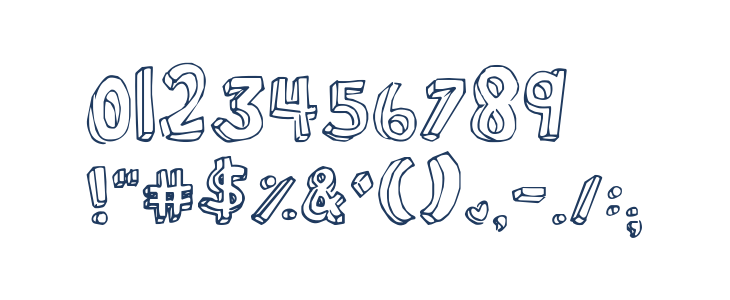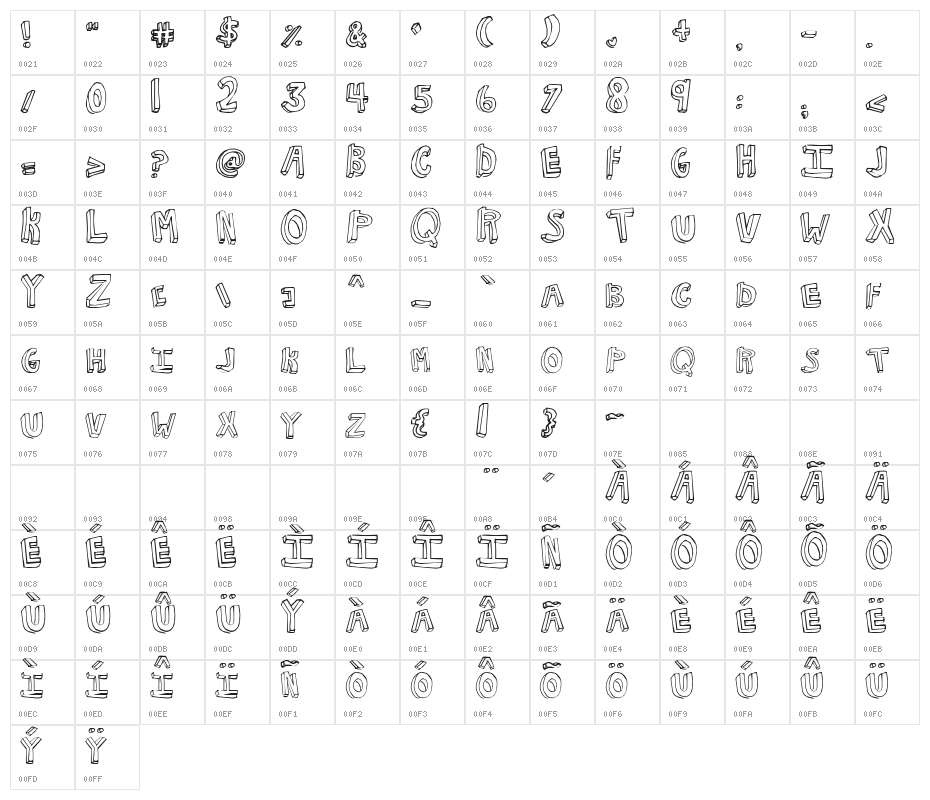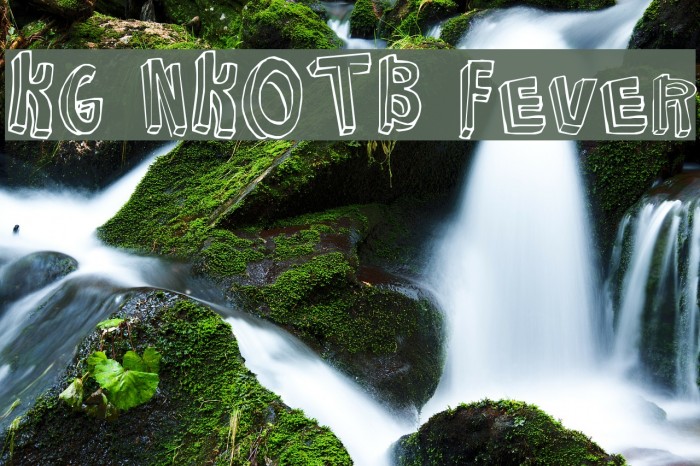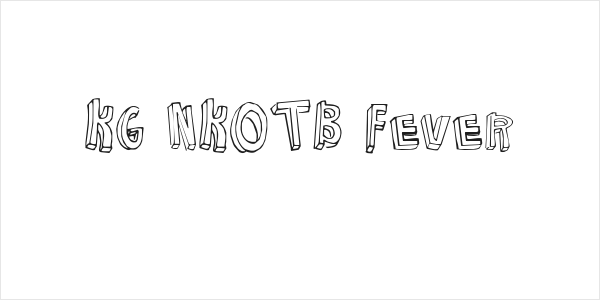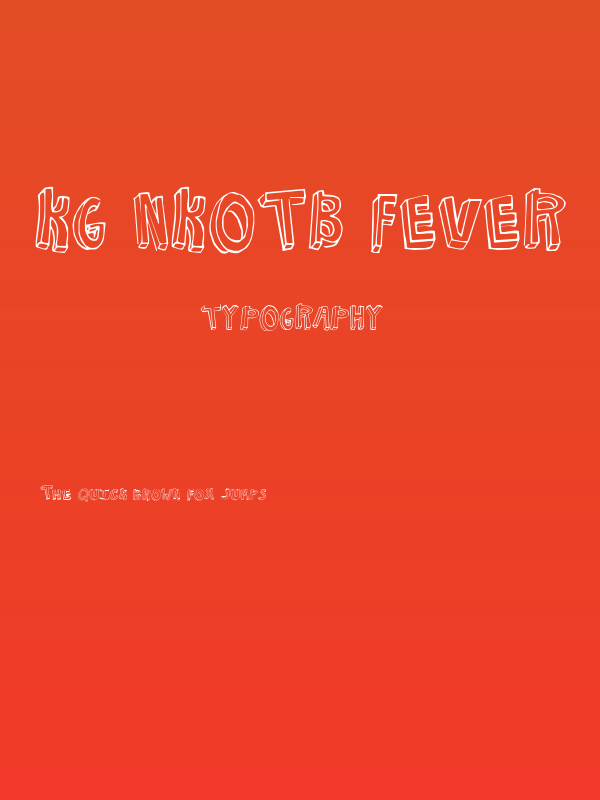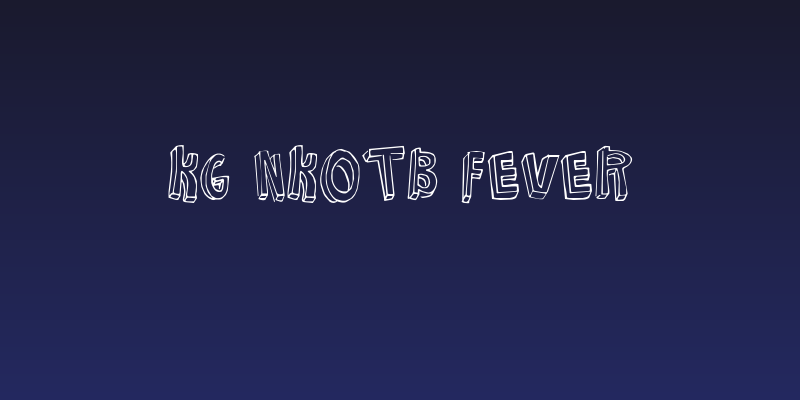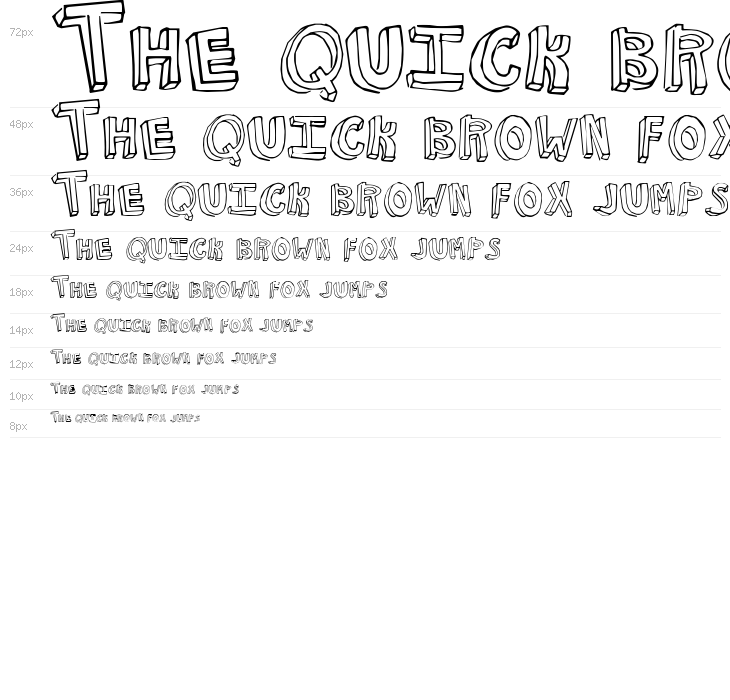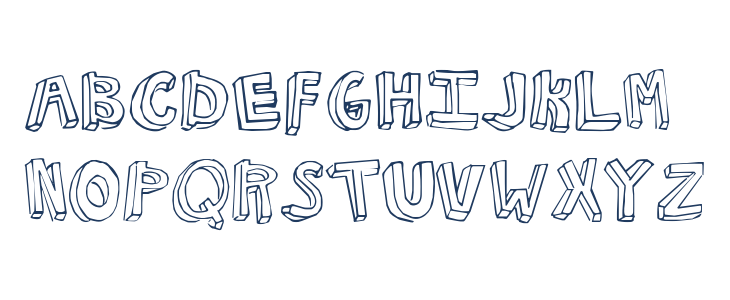
KG NKOTB Fever Font
KG NKOTB Fever Description
This font features a playful, three-dimensional style with bold outlines and a hand-drawn aesthetic. Each character appears to be sketched with a shadow effect, giving it a dynamic and lively appearance. The letters are uppercase and lowercase, with numbers and a variety of special characters included. The design is reminiscent of graffiti or comic book lettering, making it ideal for creative and informal projects. The strokes are consistent in width, providing a uniform look across all characters. The font's unique style makes it stand out, perfect for capturing attention in headlines or logos.
| Overall Style | Playful, Comic, Hand-drawn |
| Proposed Projects | Ideal for posters, comic books, children's books, and creative branding projects. |